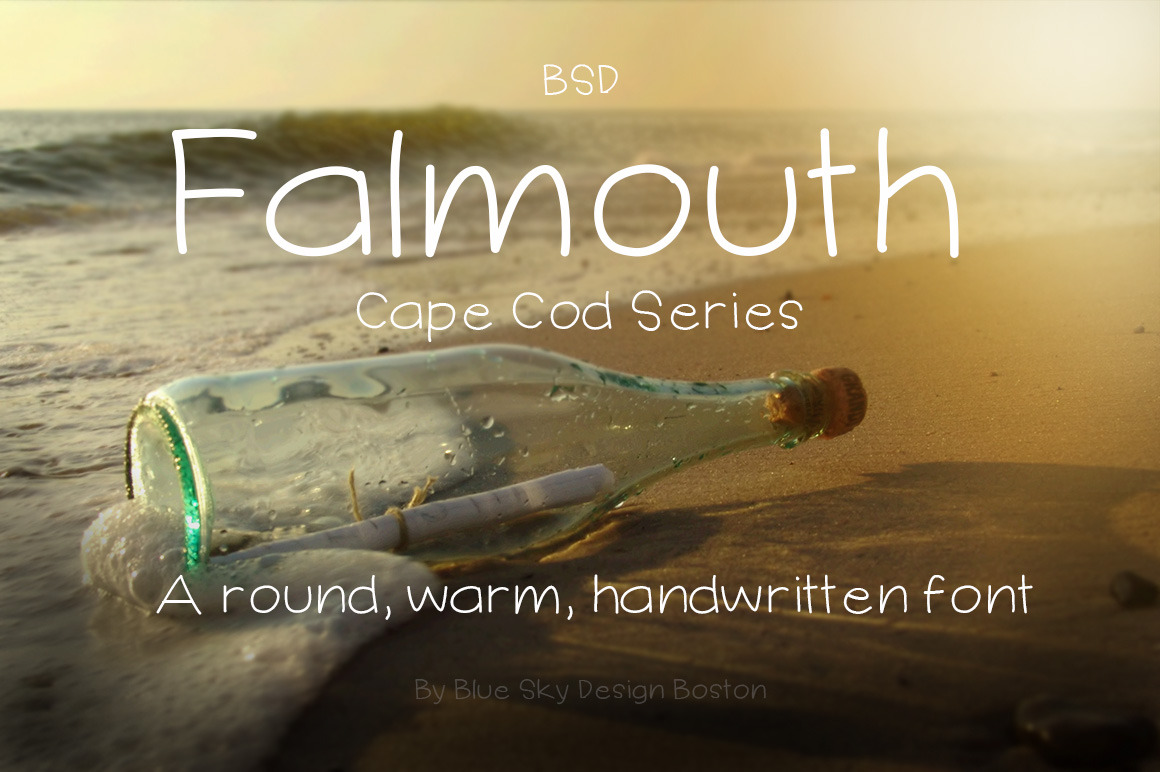
BSD Falmouth Font
Casual, round bodied handwritten font. Part of the Cape Cod series, each font embodies the spirit of this beautiful coastal Massachusetts area